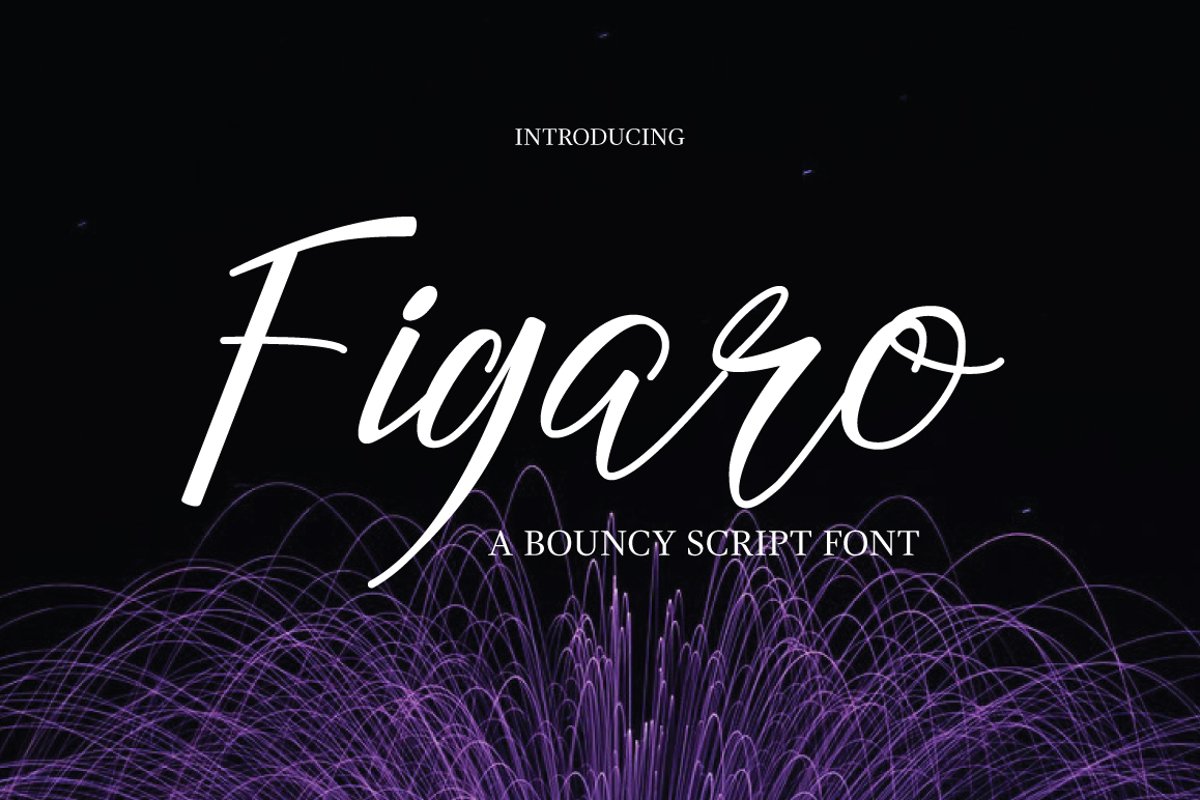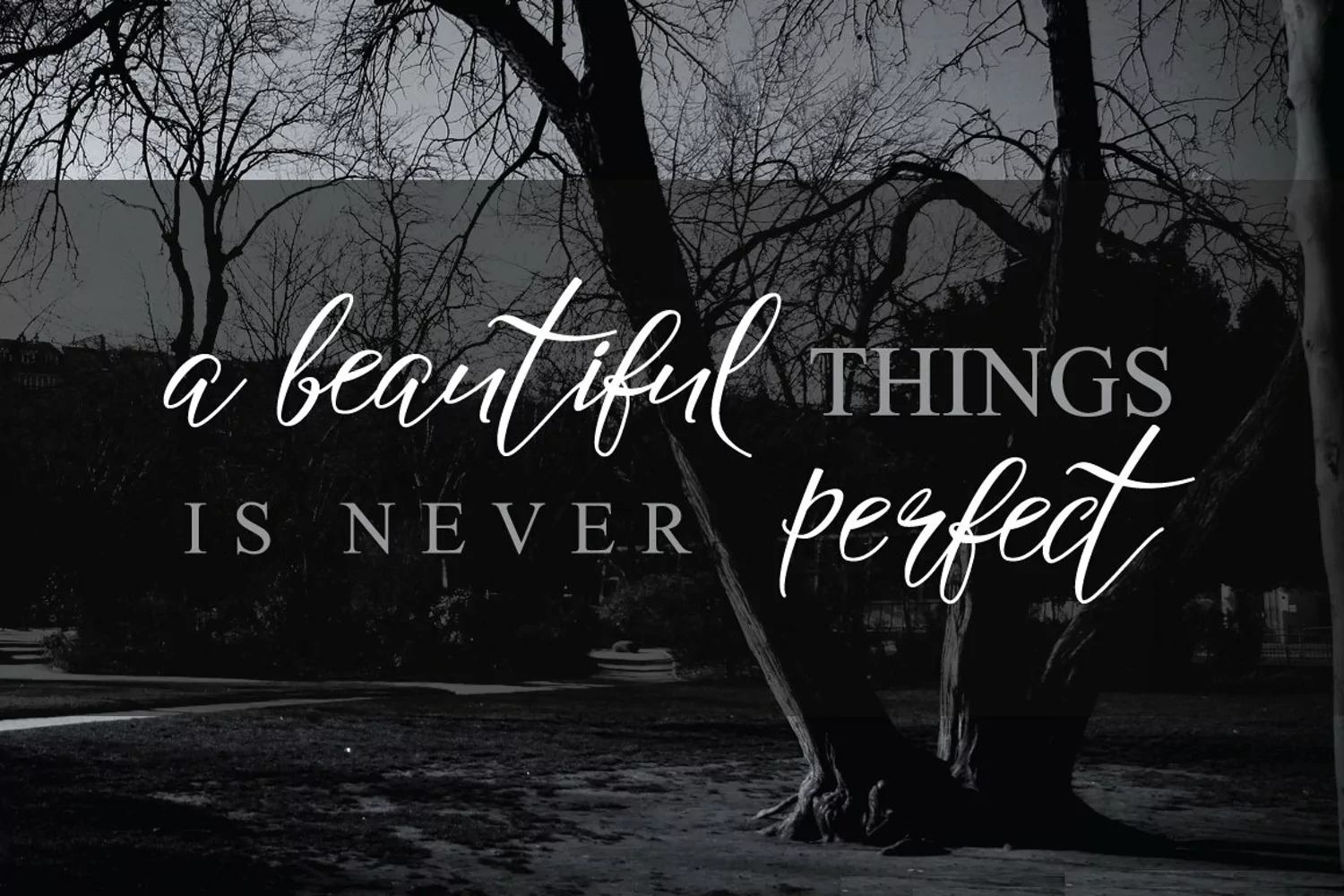
Presenting
Figaro
Typeface, an enjoyable and irregular
bouncy script font which is insight and sensibly designed to create your
text looks extraordinary. A vibrant script style typeface will craft a well-ordered
appearance for many different projects such as quotes, blog header, poster,
wedding, branding, logo, fashion, apparel, letter, invitation, stationery, etc.